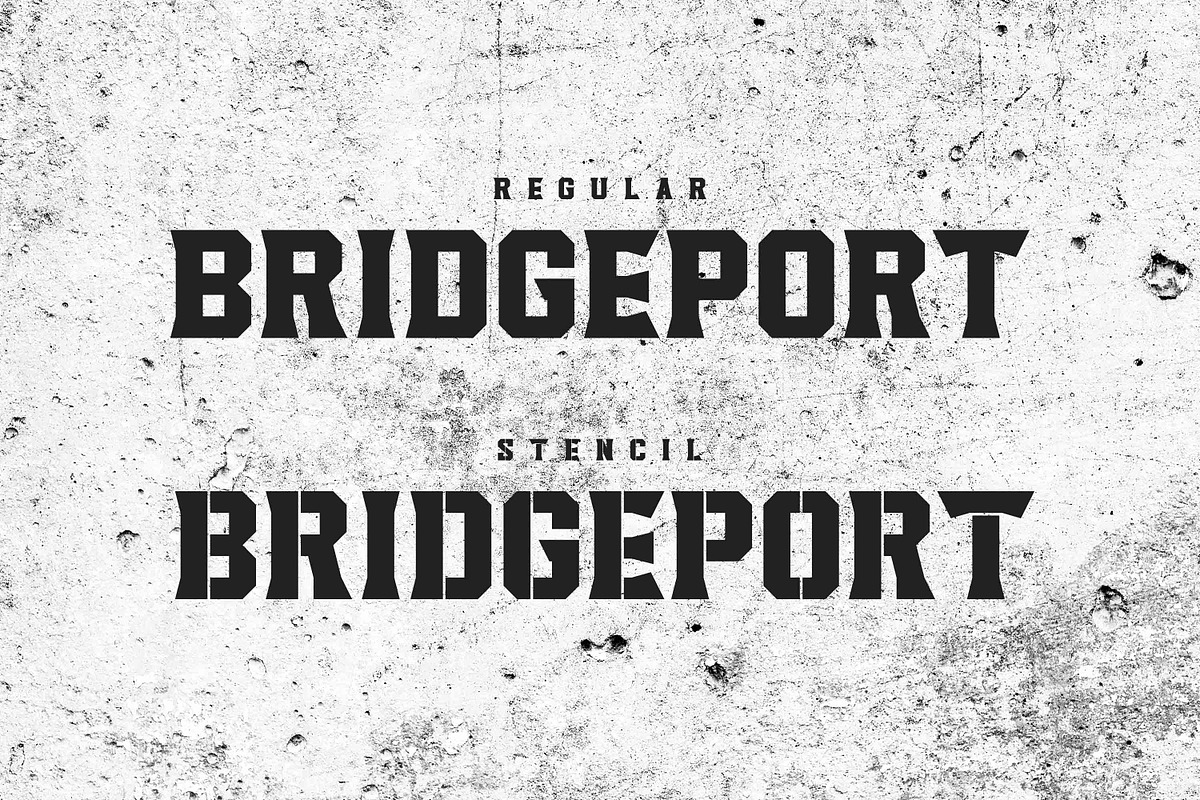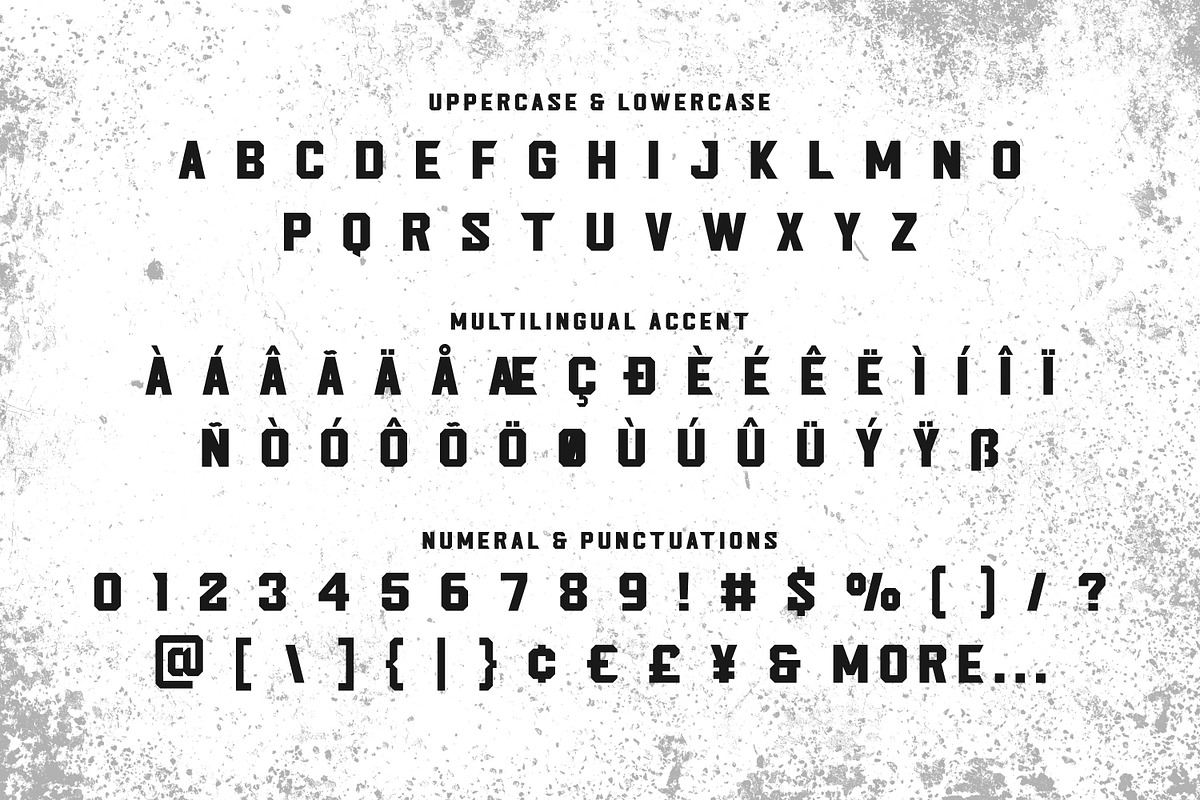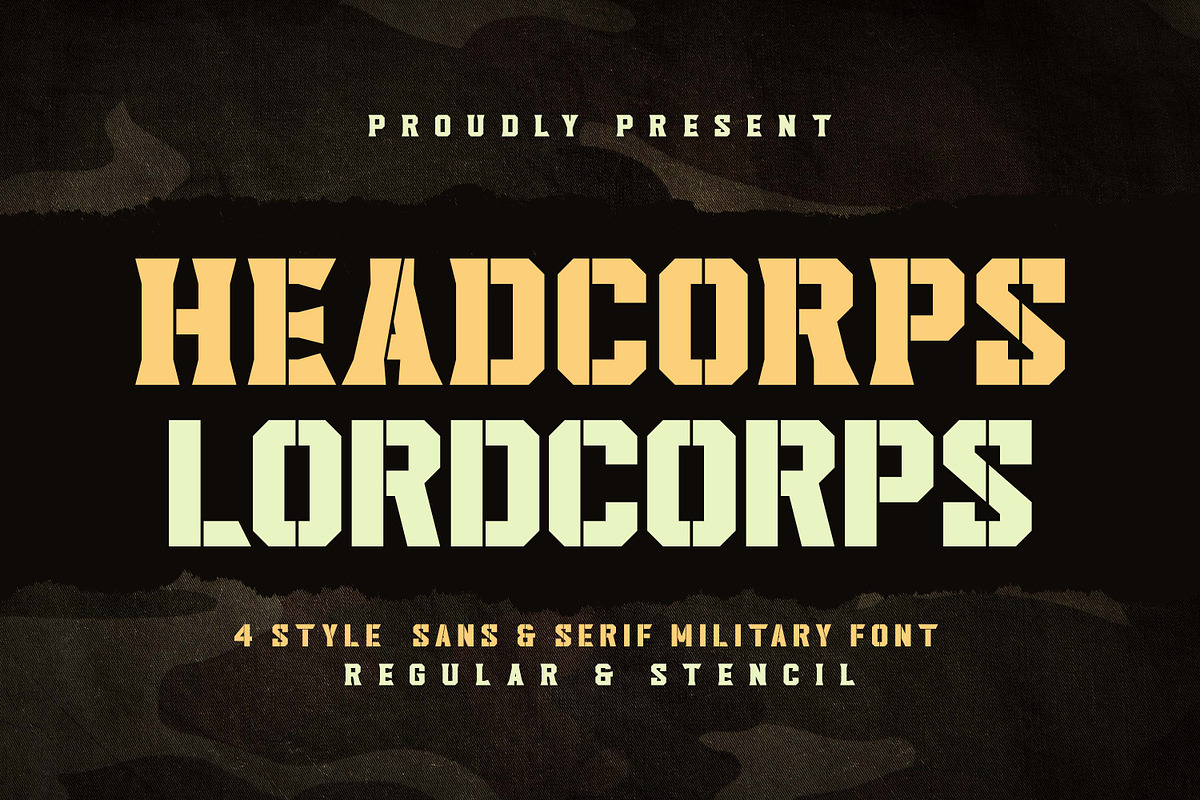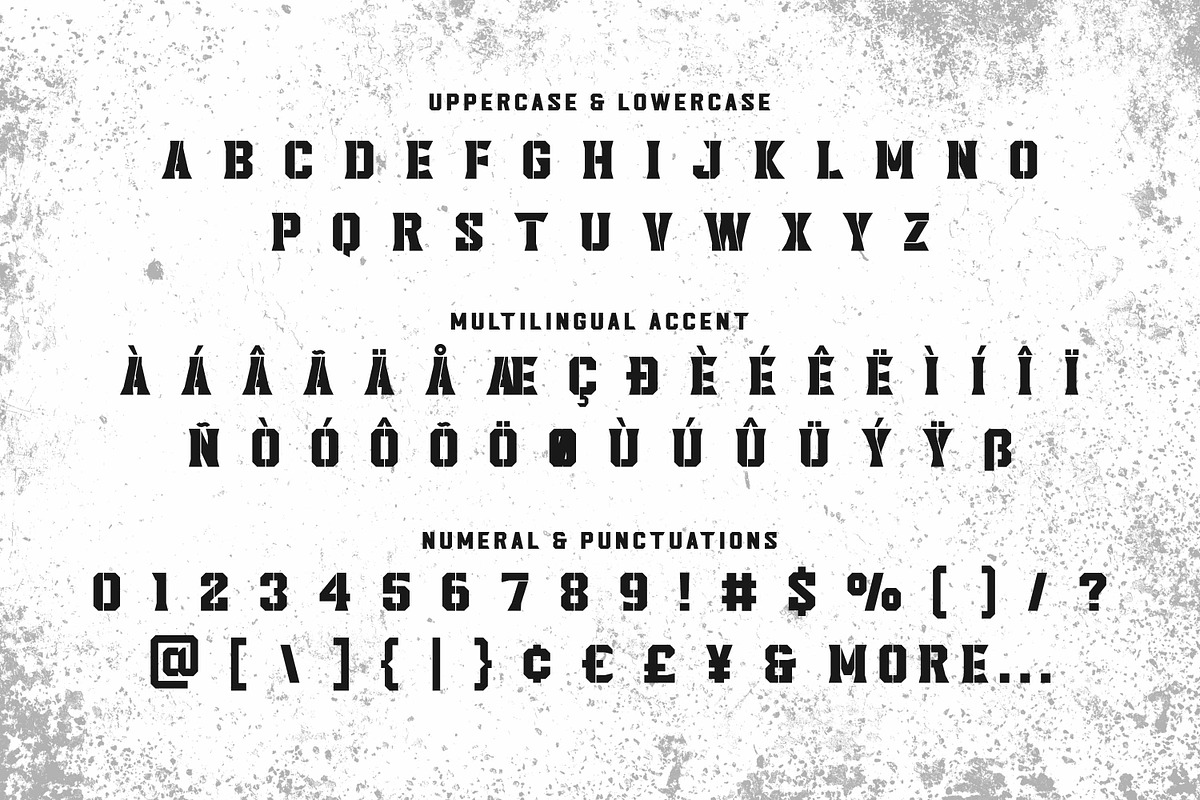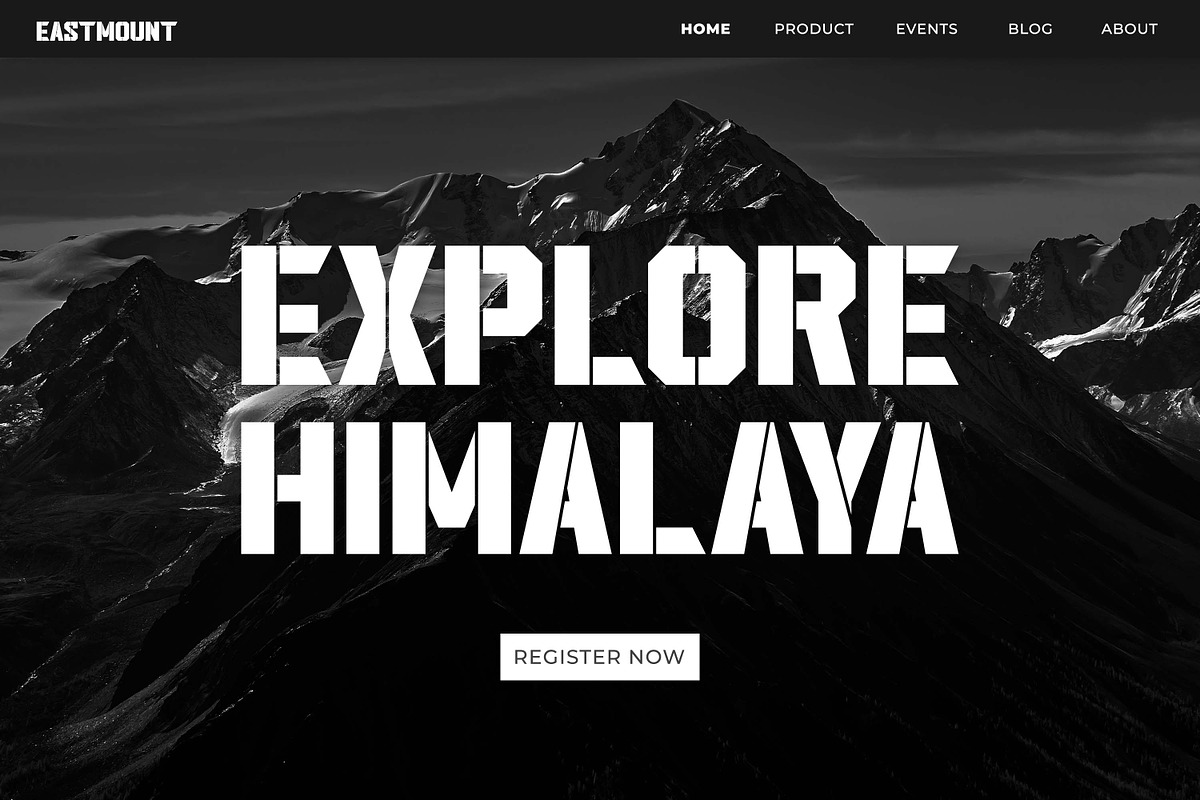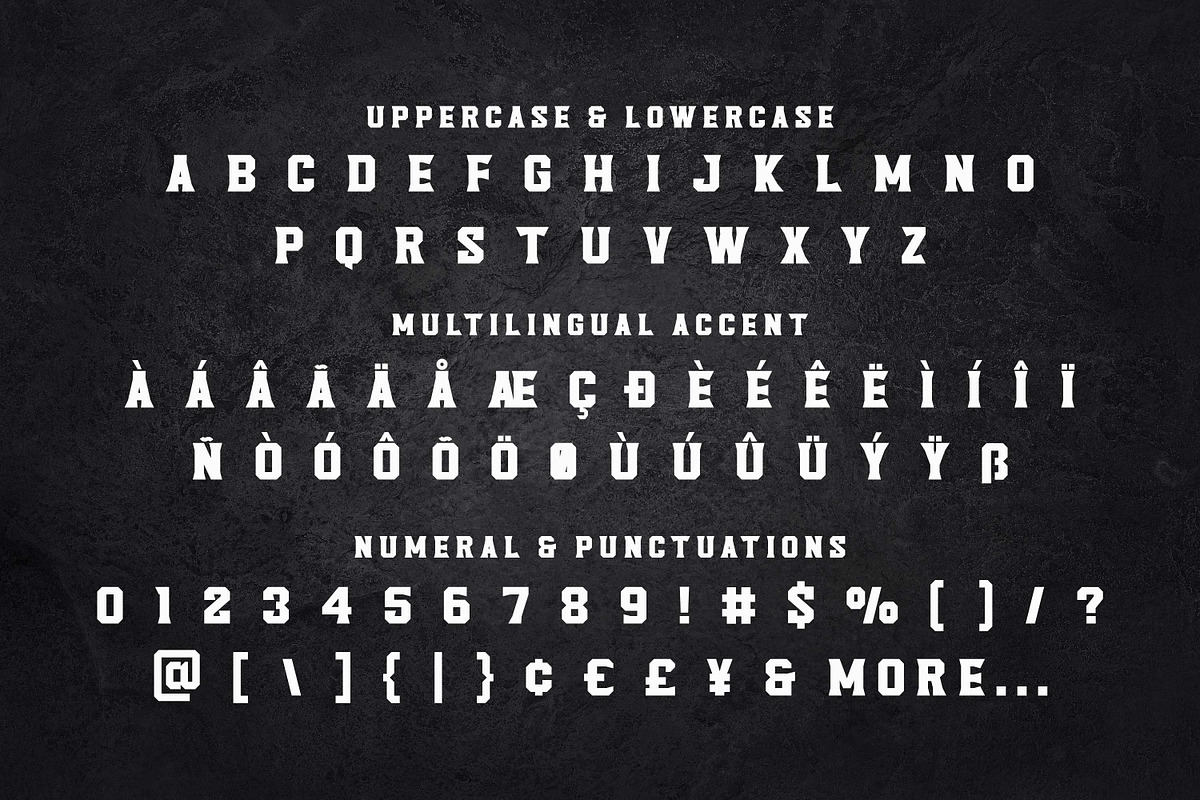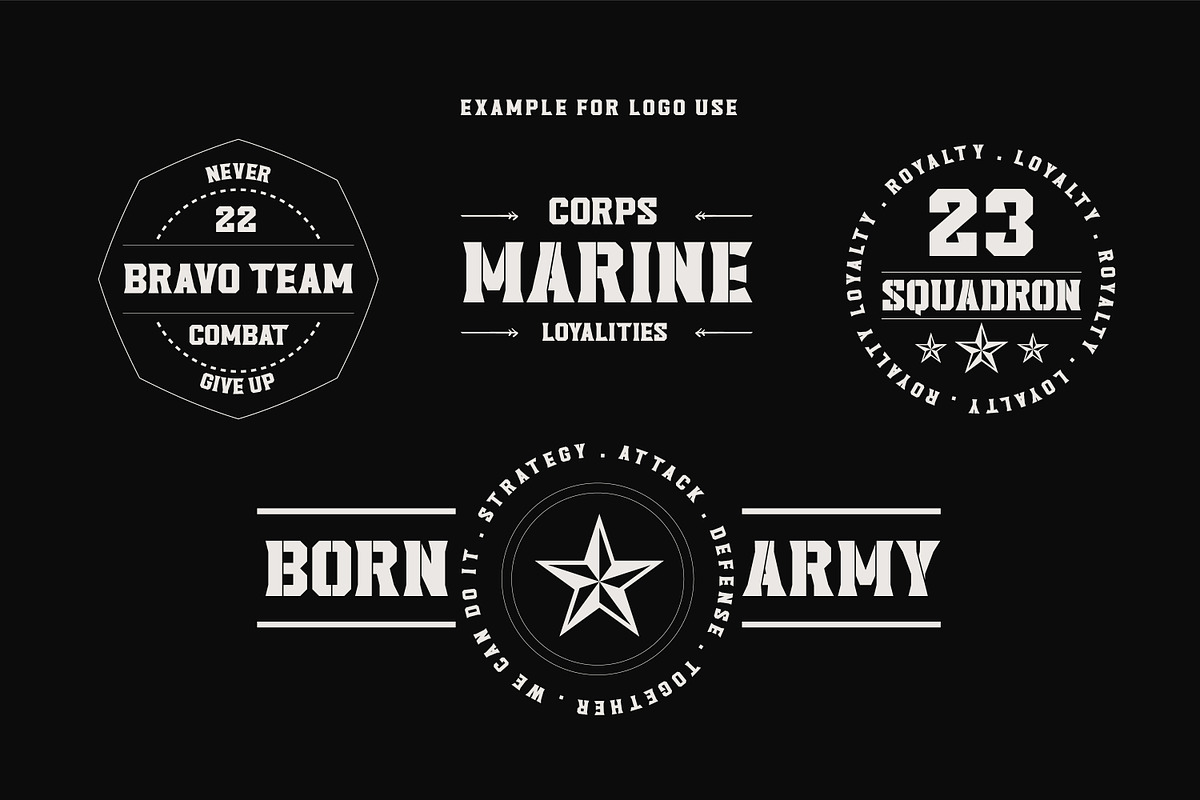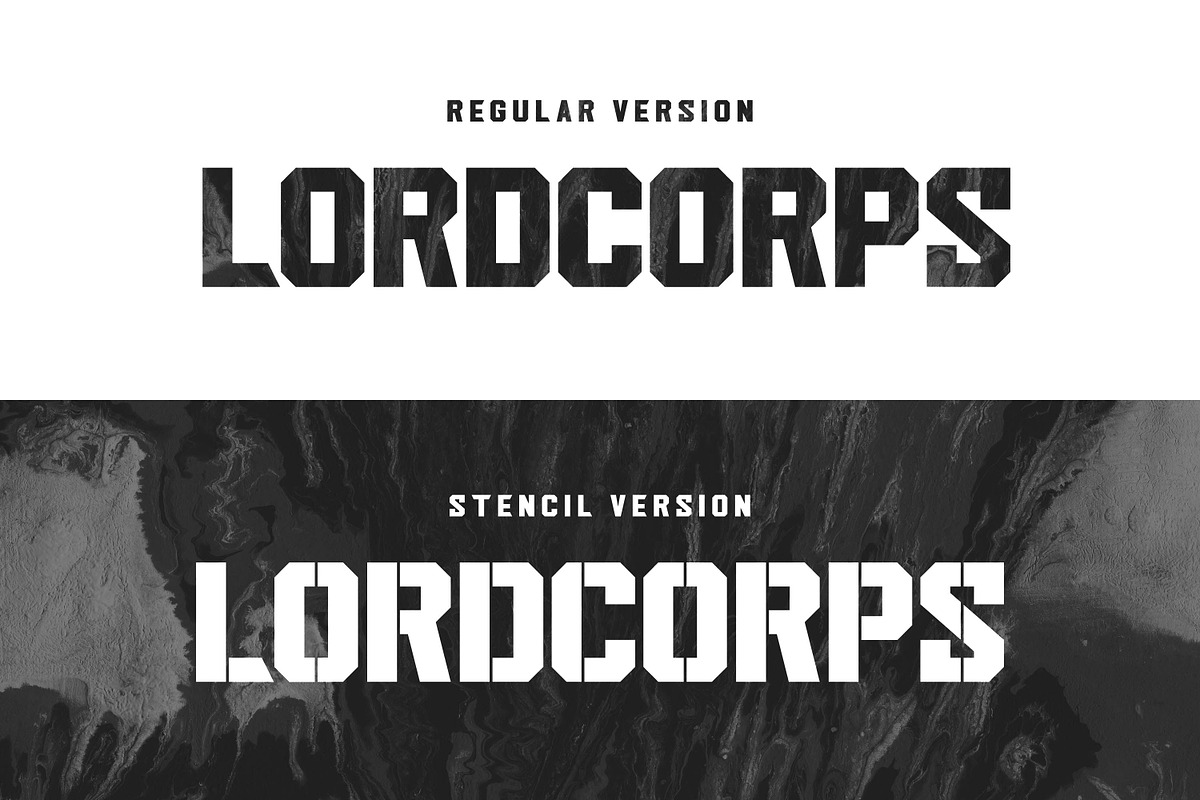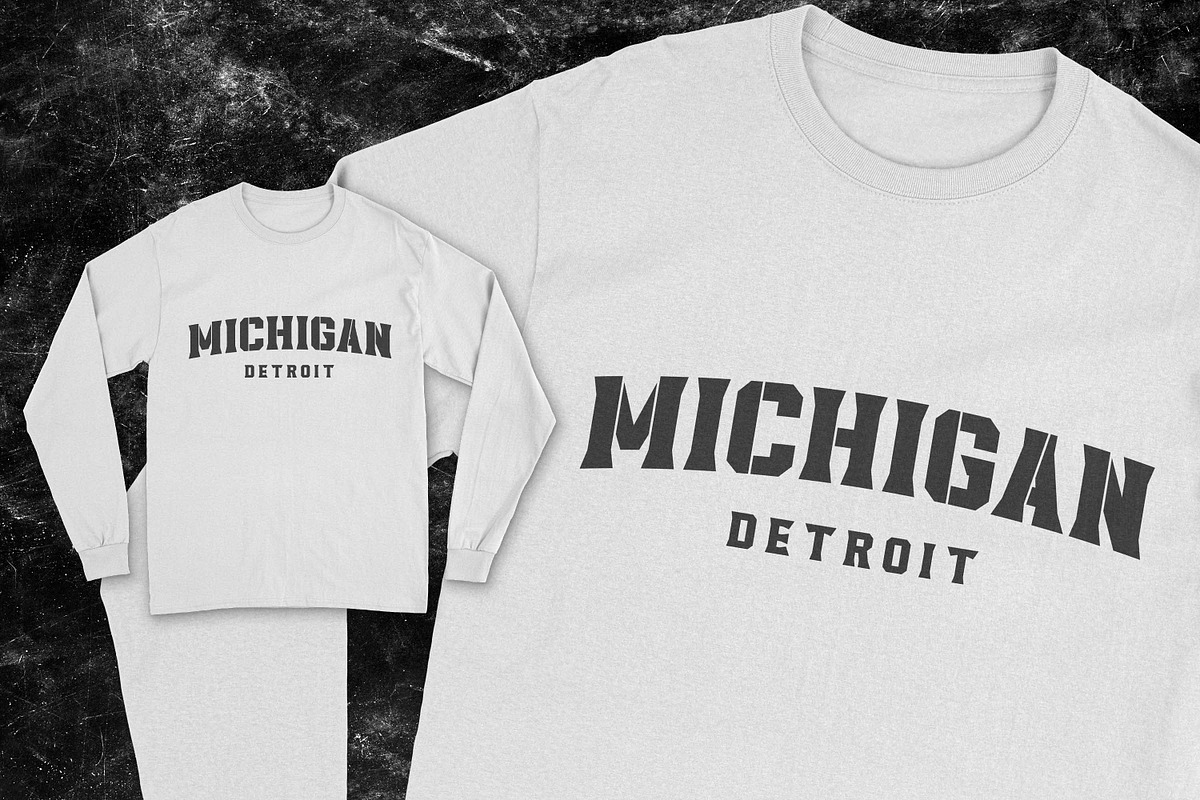
Headcorps & Lordcorps /Military Font
Headcorps & Lordcorps is a military style font, first conceptualize was inspired by the classic vintage military stencil design .
I wanted a typeface that could be a solid base for any military inspired project Headcorps & Lordcorps Fonts can be used for wallpaper, pattern fills, web page background, surface textures. Perfect for making army posters , scrapbooking,invitation cards, label stickers, stationary, gift wrap, packaging, clothes, buttons, pendants, holiday gifts, print on fabrics and so much more
Multilingual Accent